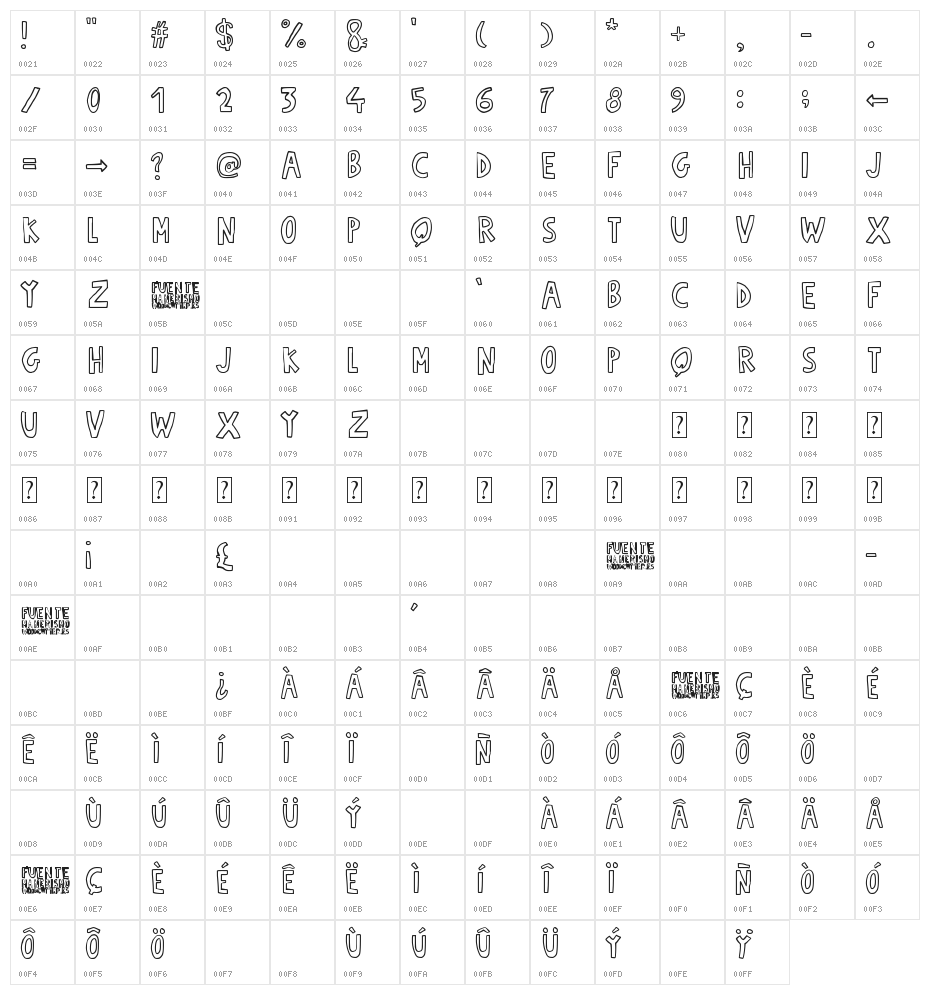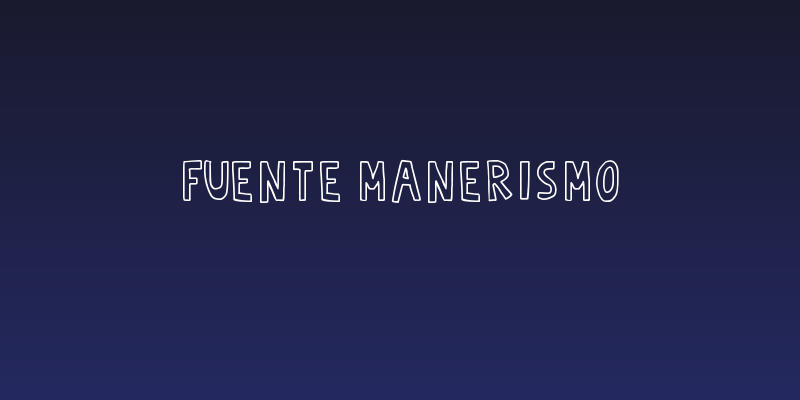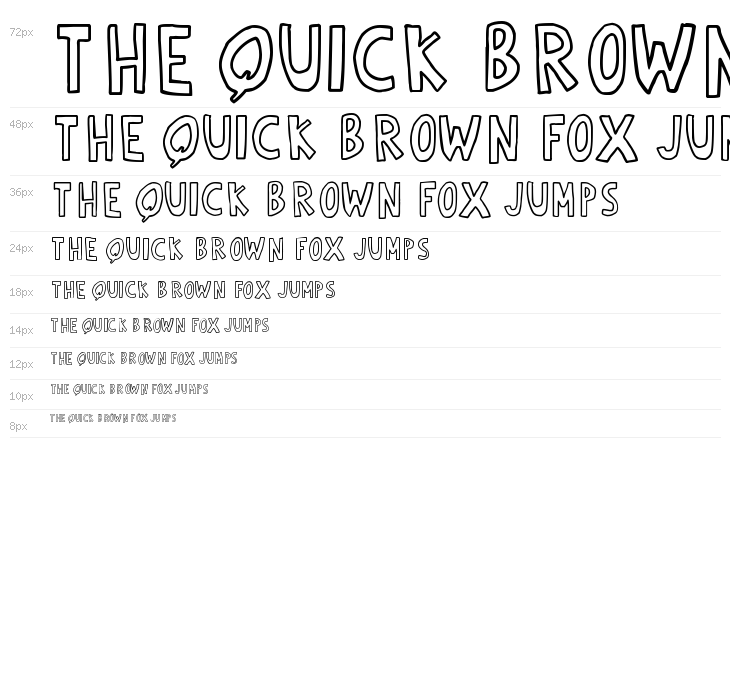
Fuente Manerismo Font
Fuente Manerismo Description
This font features a playful and quirky design with a hand-drawn aesthetic. The characters are outlined with a bold, uneven stroke, giving them a casual and informal feel. The uppercase and lowercase letters maintain a consistent style, with some letters incorporating unique elements, such as the slashed zero and the distinctive 'Q'. The numerals and special characters follow the same whimsical style, making the font suitable for creative and fun projects. The overall appearance is lively and energetic, perfect for capturing attention.
| Overall Style | Playful, Quirky |
| Use Case | Headlines, Posters, Creative projects |
| Proposed Projects | Ideal for children's books, comic strips, playful branding, and creative posters. |